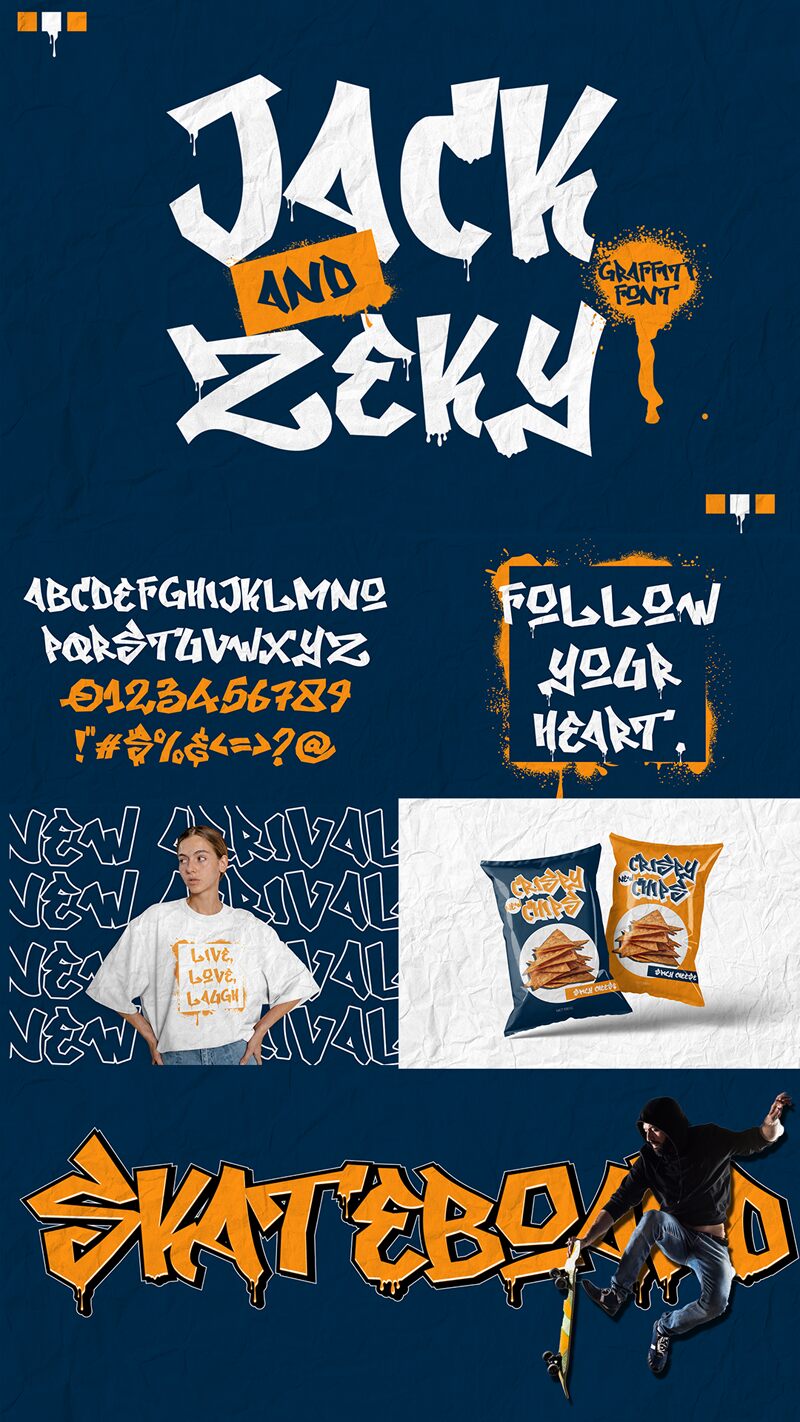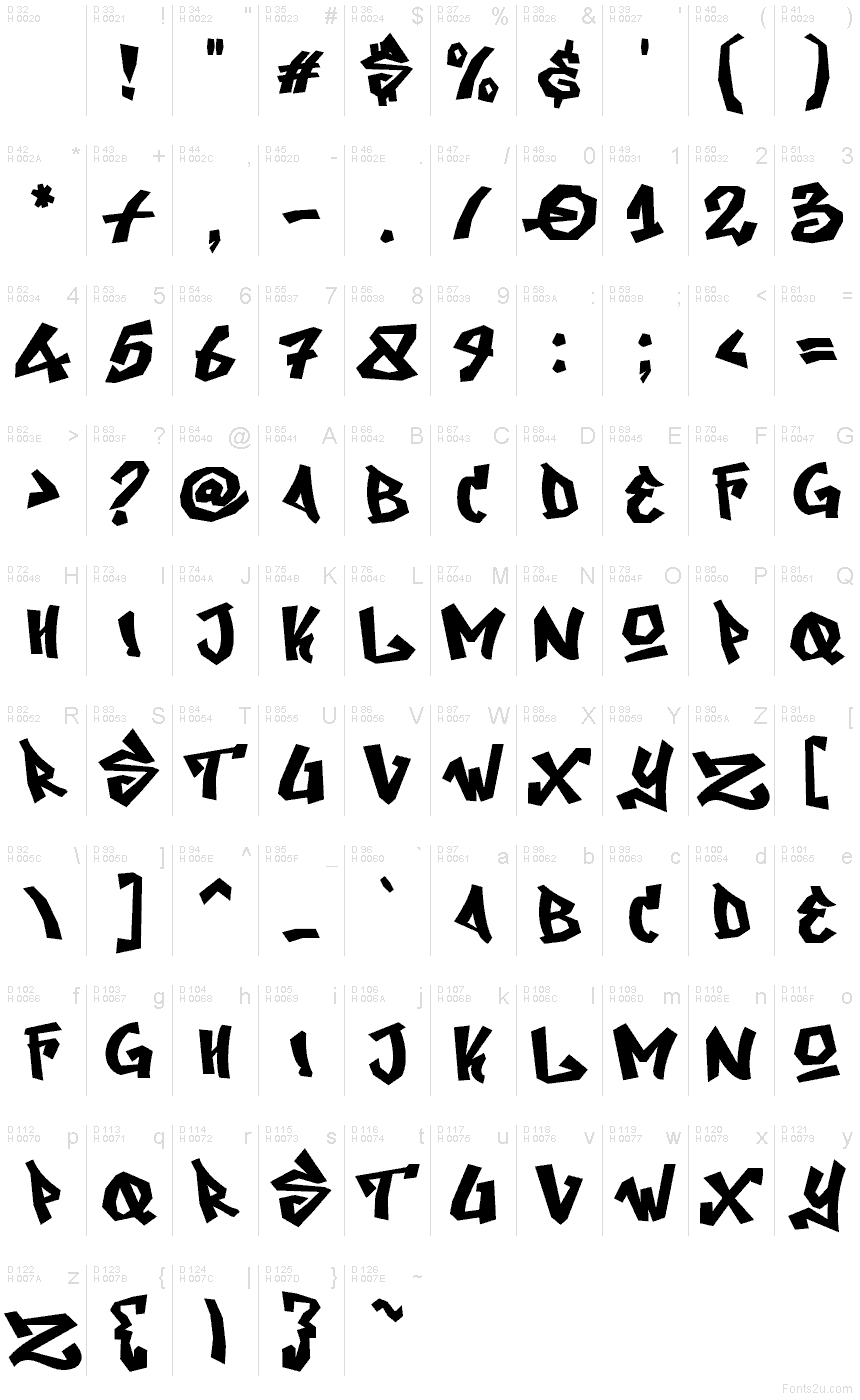
Jack and Zeky
Jack and Zeky font by Cikareotype Studio is a free graffiti font. Built around jagged, chisel-tip strokes and bold, slanted energy, it lands like fresh paint—edgy, fast, and a touch unruly. The letters lock together with punchy rhythm and chunky counters, giving headlines that “tagged wall” snap without losing legibility.
This free font shines on streetwear logos, skate or BMX posters, festival flyers, YouTube thumbnails, sticker packs, and album art. Use Jack and Zeky big and tight for maximum impact; keep subtext in a clean sans to let the grit breathe. The result feels raw, loud, and instantly urban—ready to brand anything with street-level attitude.